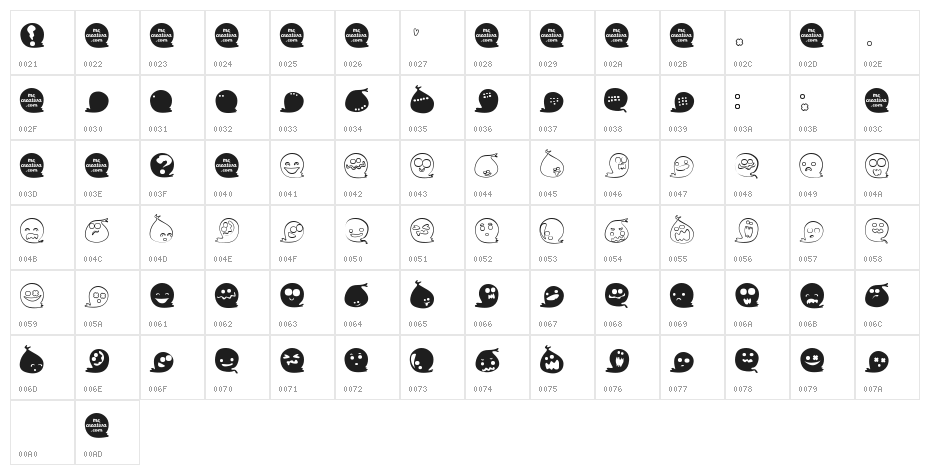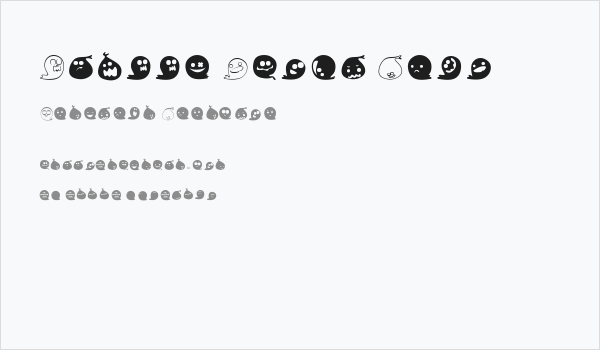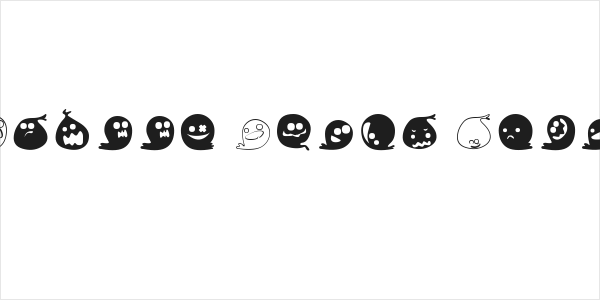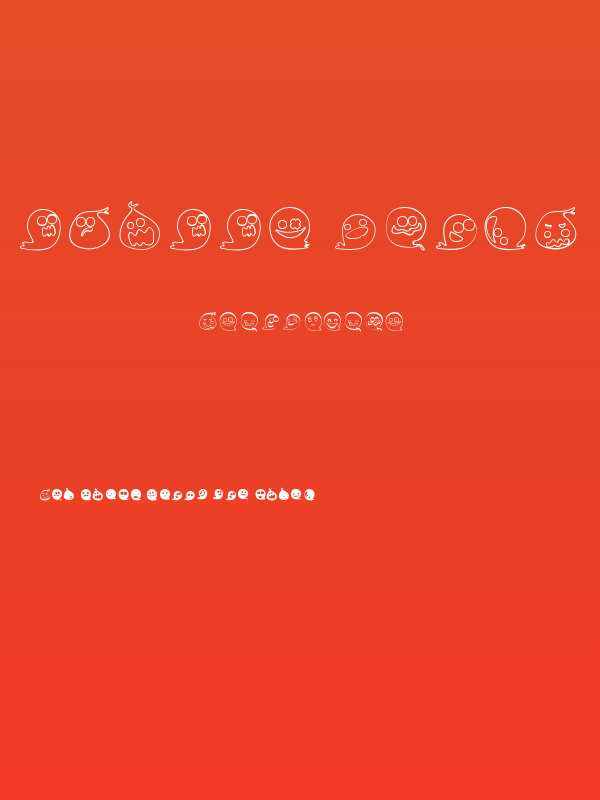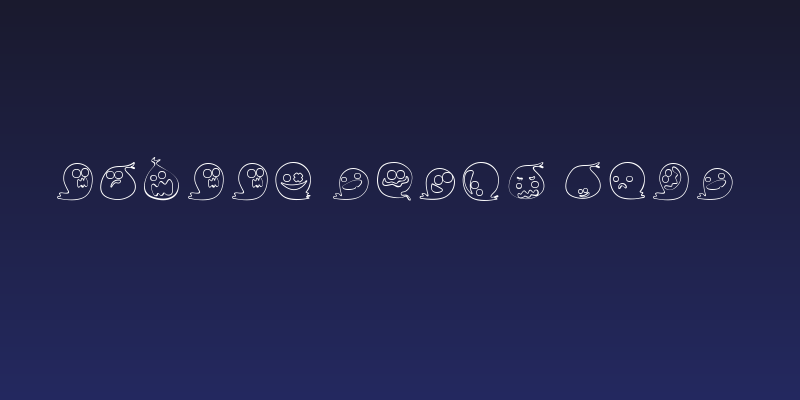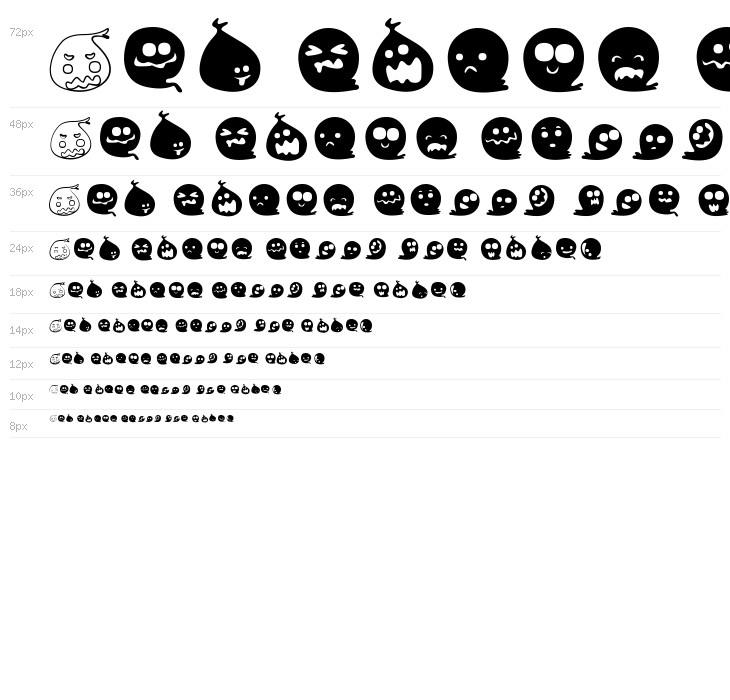
Fluffy Ghost Ding Font
Fluffy Ghost Ding Description
This set features a whimsical collection of ghost-like characters, each with unique expressions and playful designs. The characters are rounded and fluffy, with a variety of facial features that convey different emotions, from happy and surprised to mischievous and spooky. The style is cartoonish and light-hearted, making it suitable for fun and creative projects. The characters are presented in both outline and filled styles, offering versatility in design applications. The overall appearance is charming and engaging, perfect for adding a touch of humor and personality to any project.
| Overall Style | Playful, Cartoonish |
| Use Case | Logos, Illustrations, Themed Graphics |
| Proposed Projects | Ideal for children's books, Halloween-themed designs, playful branding, and creative social media graphics. |